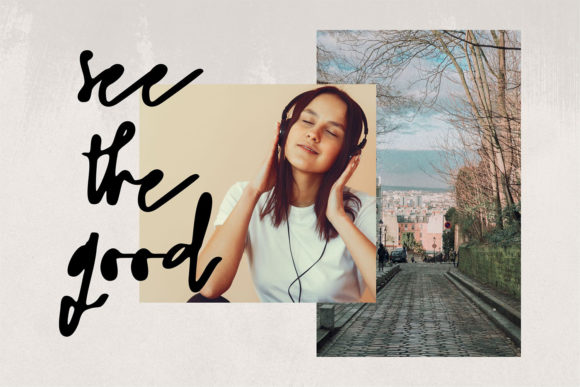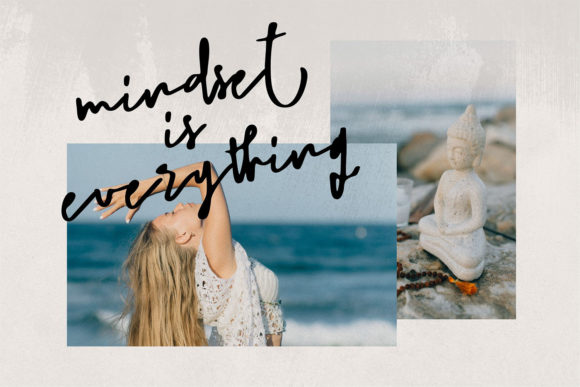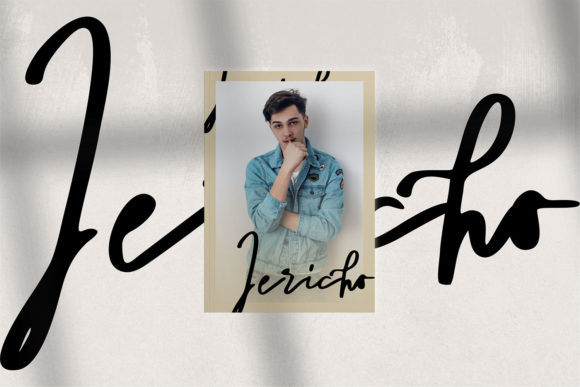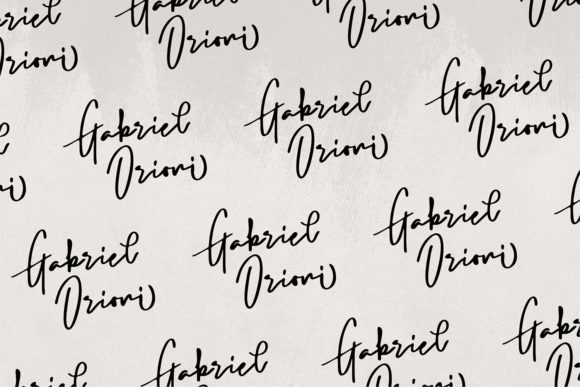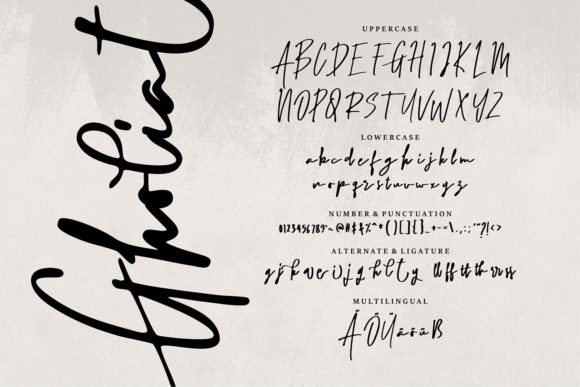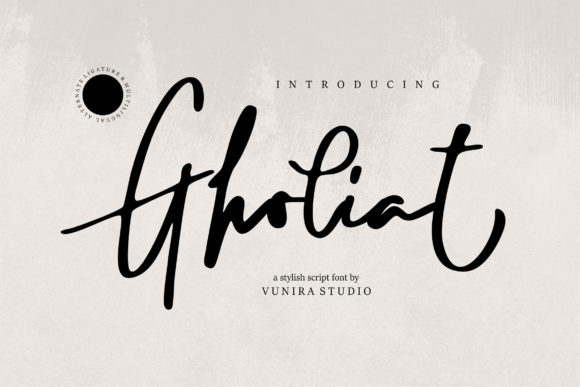
Discover the Elegance of Gholiat Font: A Stylish and Unique Handwritten Font
In the world of typography, fonts play a crucial role in conveying messages, expressing emotions, and creating a lasting impression. For designers, crafters, and creative enthusiasts, finding the perfect font can be a daunting task. However, if you’re looking for a stylish and unique handwritten font that can elevate your designs, look no further than Gholiat Font.
What is Gholiat Font?
Gholiat Font is a beautiful, handwritten font that exudes elegance and sophistication. Its unique and stylish design makes it an excellent choice for various purposes, including logos, wedding invitations, headings, t-shirts, letterhead, signage, labels, news, posters, badges, and more.
Key Features of Gholiat Font
- Handwritten Design: Gholiat Font boasts a stunning handwritten design that adds a personal touch to any project.
- Unique and Stylish: Its distinctive style sets it apart from other fonts, making it perfect for designers looking to create something special.
- Versatile: Gholiat Font can be used for a wide range of applications, from logos and invitations to signage and merchandise.
- Easy to Read: Despite its elegant design, Gholiat Font remains easy to read, making it suitable for both digital and print materials.
Uses of Gholiat Font
Gholiat Font’s versatility makes it an excellent choice for various projects. Here are some of the many ways you can use this beautiful font:
- Logos: Create a stunning logo for your business or brand with Gholiat Font.
- Wedding Invitations: Add a touch of elegance to your wedding invitations and save-the-date cards.
- Headings and Titles: Use Gholiat Font to create eye-catching headings and titles for your blog posts, articles, and social media content.
- T-Shirts and Merchandise: Design custom t-shirts, mugs, and other merchandise with Gholiat Font.
- Signage and Labels: Use Gholiat Font for signage, labels, and other display materials.
- Posters and Badges: Create stunning posters and badges with Gholiat Font.
Why Choose Gholiat Font?
With so many fonts available, why choose Gholiat Font? Here are a few reasons why designers and crafters love this font:
- Unique Design: Gholiat Font’s distinctive design sets it apart from other fonts.
- Elegant and Sophisticated: This font exudes elegance and sophistication, making it perfect for high-end designs.
- High-Quality: This font is designed with high-quality and clarity in mind, ensuring it looks great in any size or resolution.
Tips for Using Gholiat Font
To get the most out of Gholiat Font, here are a few tips:
- Pair with Other Fonts: Experiment with pairing Gholiat Font with other fonts to create a unique and visually appealing design.
- Adjust Font Size and Style: Play with font sizes and styles to add emphasis and create visual hierarchy.
- Use on High-Contrast Backgrounds: Use Gholiat Font on high-contrast backgrounds to make it stand out.
In conclusion, Gholiat Font is a stylish and unique handwritten font that can elevate your designs and add a touch of elegance to any project. Its versatility, ease of use, and high-quality design make it an excellent choice for designers, crafters, and creative enthusiasts. Whether you’re creating logos, wedding invitations, headings, or merchandise, Gholiat Font is sure to impress.